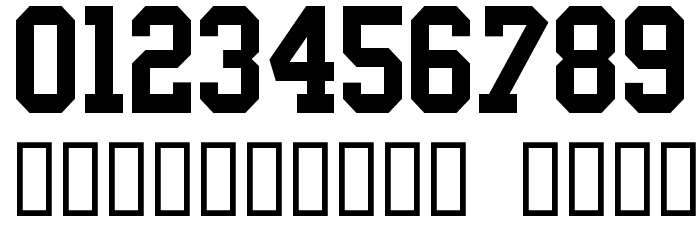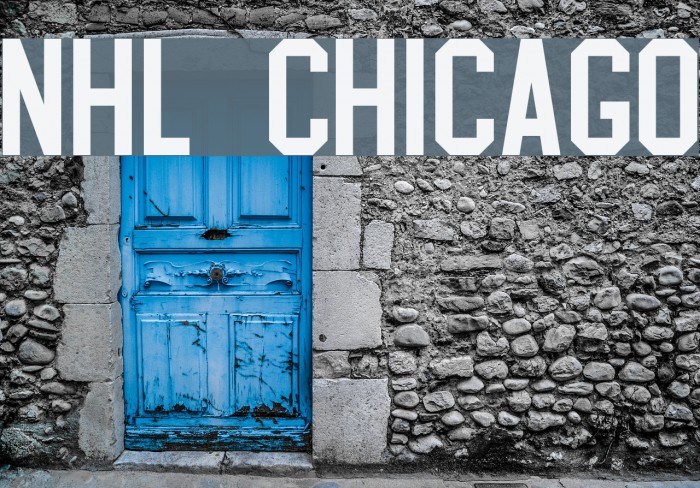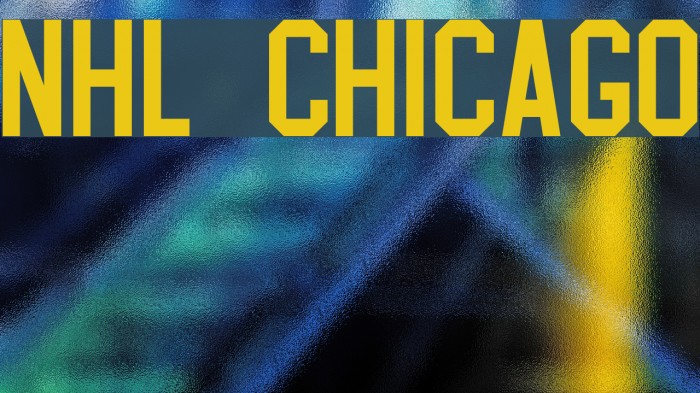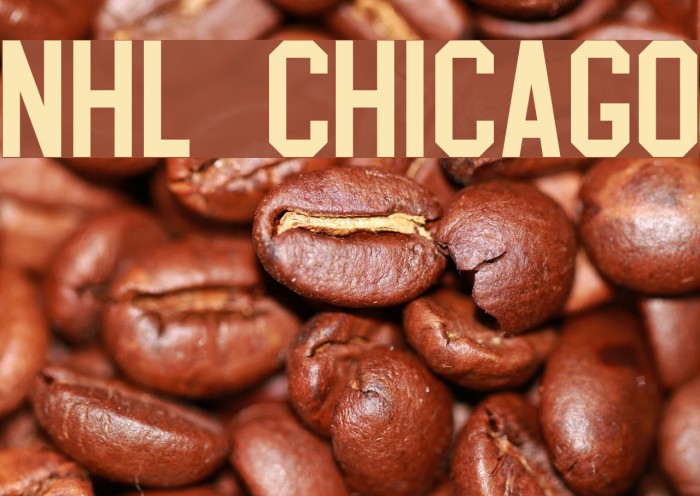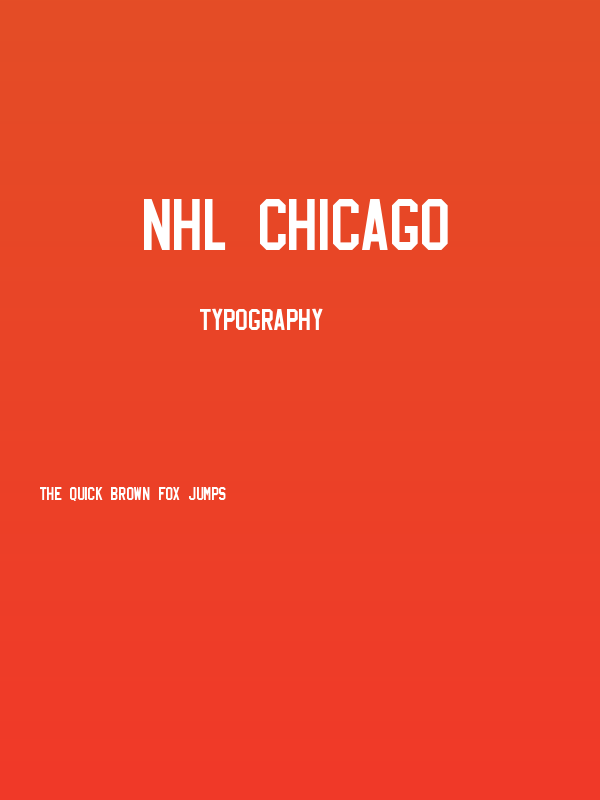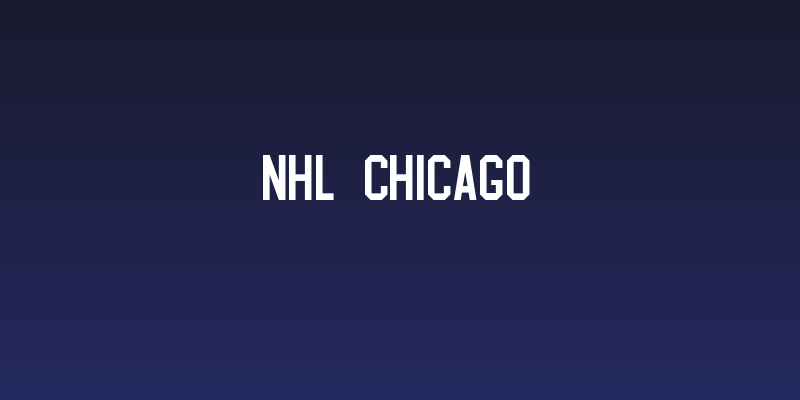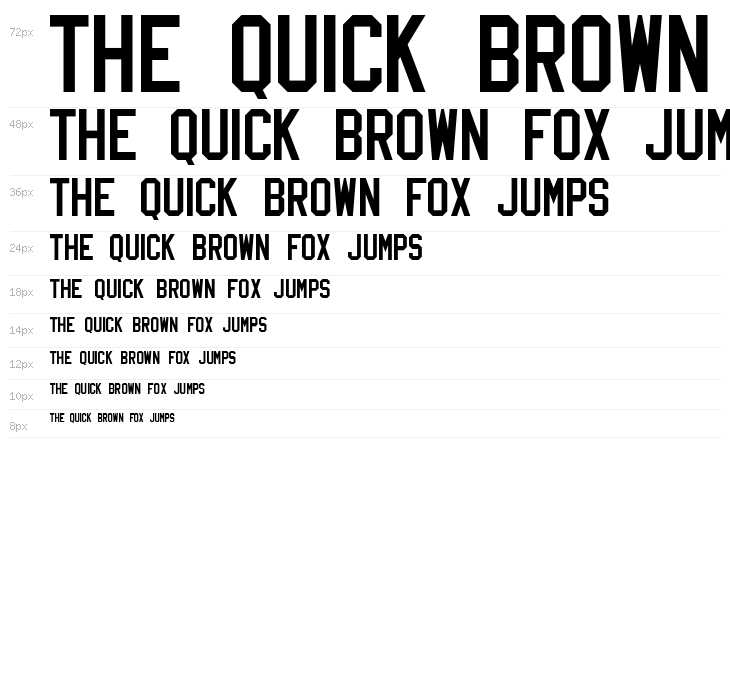
NHL Chicago Font
NHL Chicago Description
This font features a bold, geometric design with strong, angular lines and a solid presence. The uppercase letters are uniform in height and width, creating a cohesive and structured appearance. The numbers follow the same bold style, ensuring consistency across all characters. The font's design is reminiscent of sports team branding, with a focus on clarity and impact. Its blocky, robust nature makes it ideal for situations where visibility and strength are key. The absence of lowercase letters and special characters suggests a focus on straightforward, impactful communication.